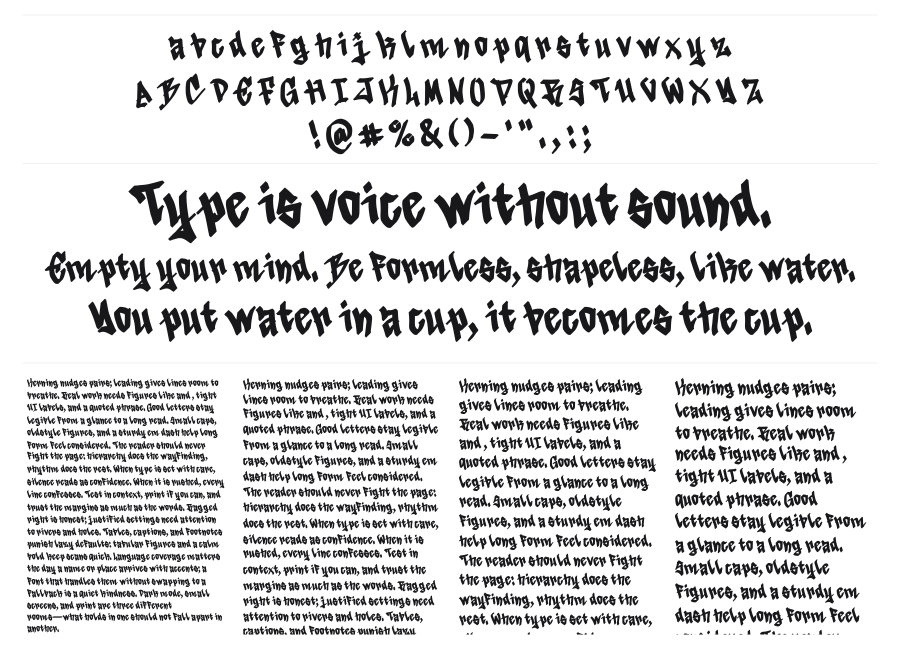
Quick Brick
Quick Brick is a heavy gothic blackletter with a raw, street-influenced edge that sets it apart from classical calligraphic traditions. The thick strokes and jagged terminals push it toward grunge and urban culture rather than medieval manuscripts. It carries a natural affinity for band logos, streetwear branding, and anything that needs an aggressive, hand-made feel.